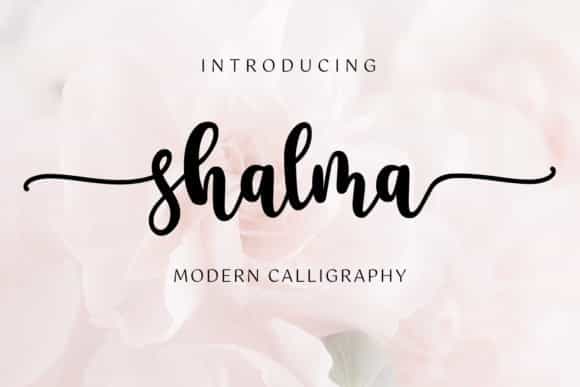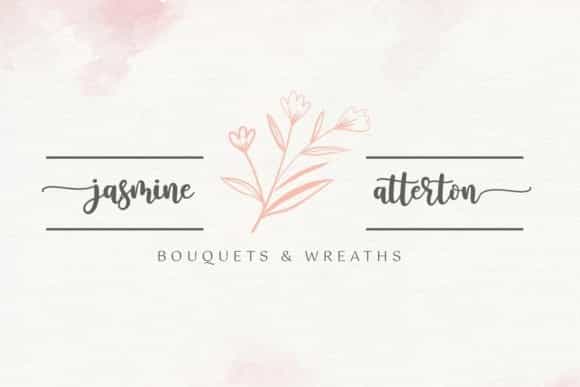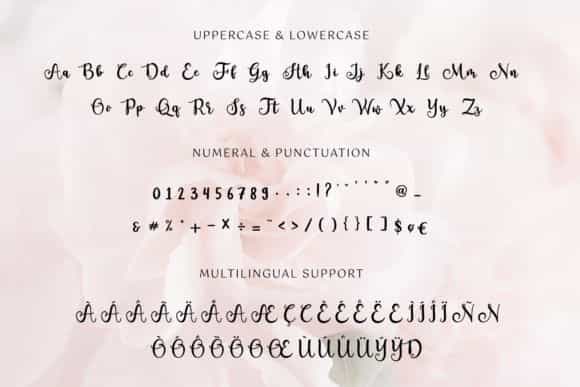
Shalma is a font that possesses the virtues of charm and elegance. This elegant script font is a modern interpretation of the classic calligraphy. Characteristics Open type feature, stylistic alternates, initial and terminal letters and ligatures are all included in it. Besides, it also supports most Western languages.